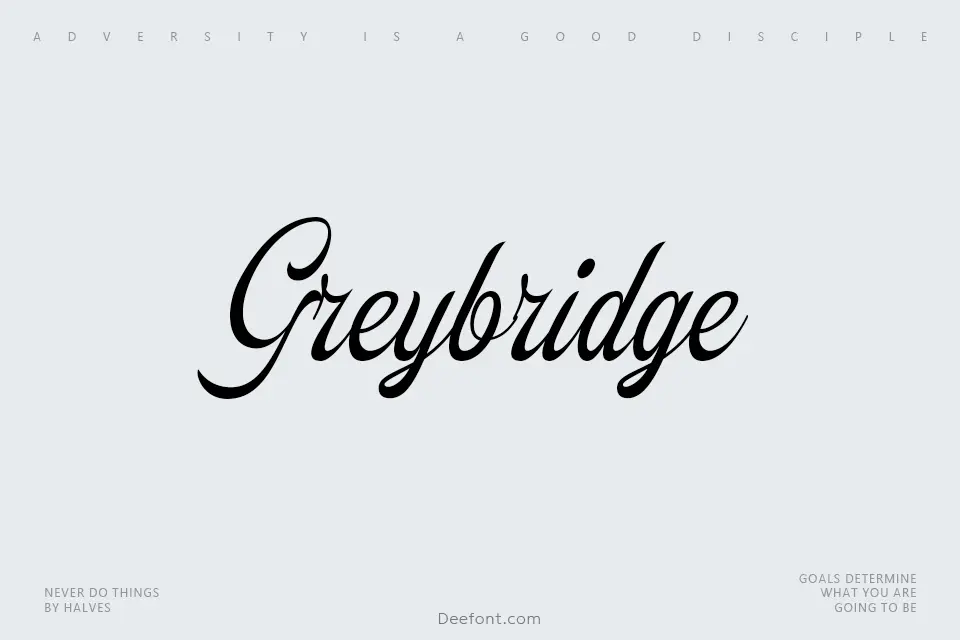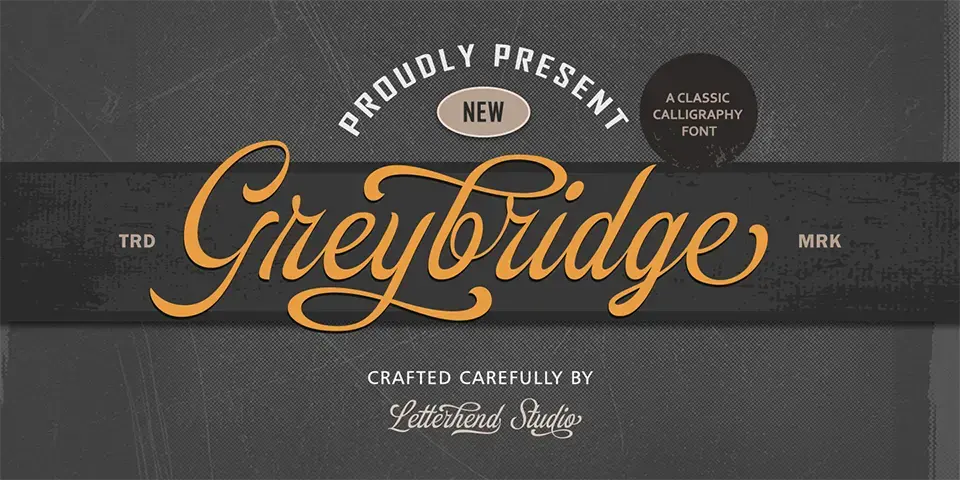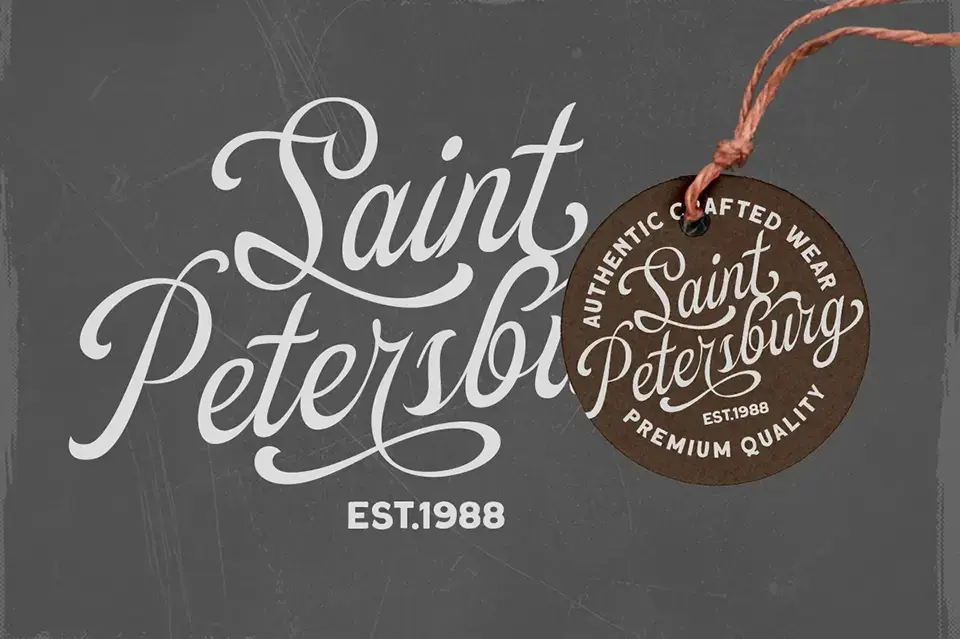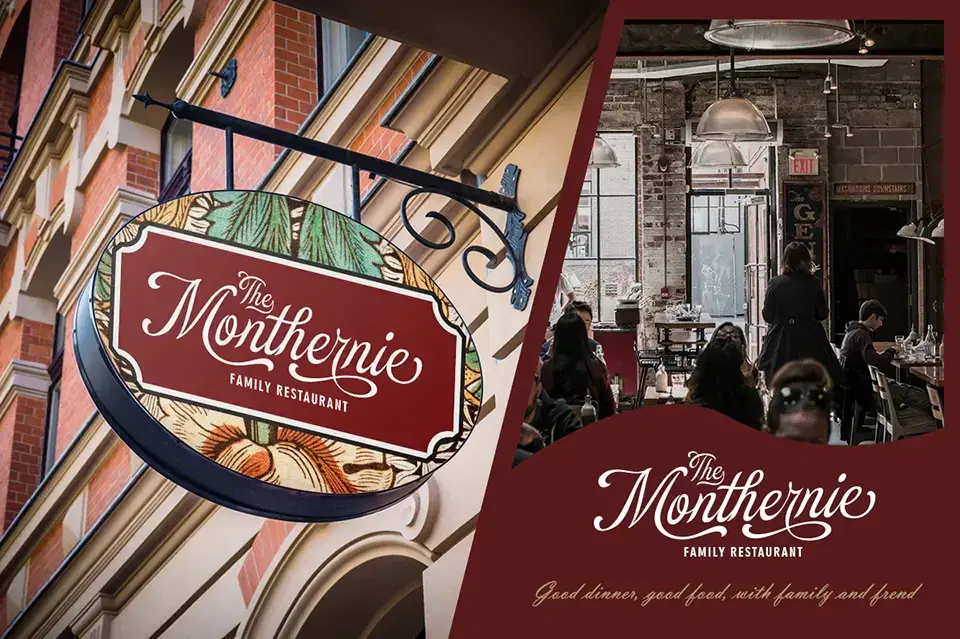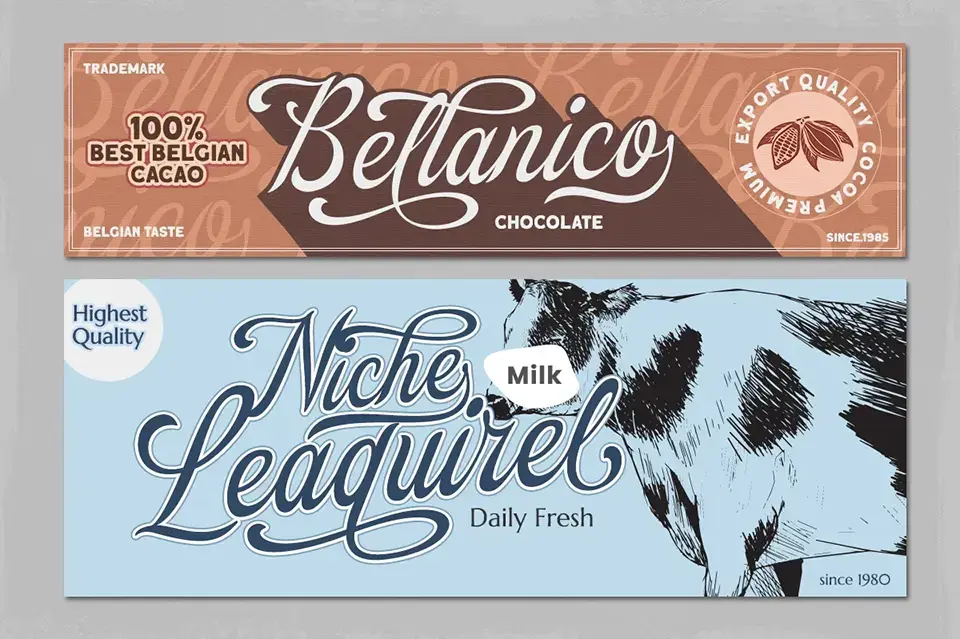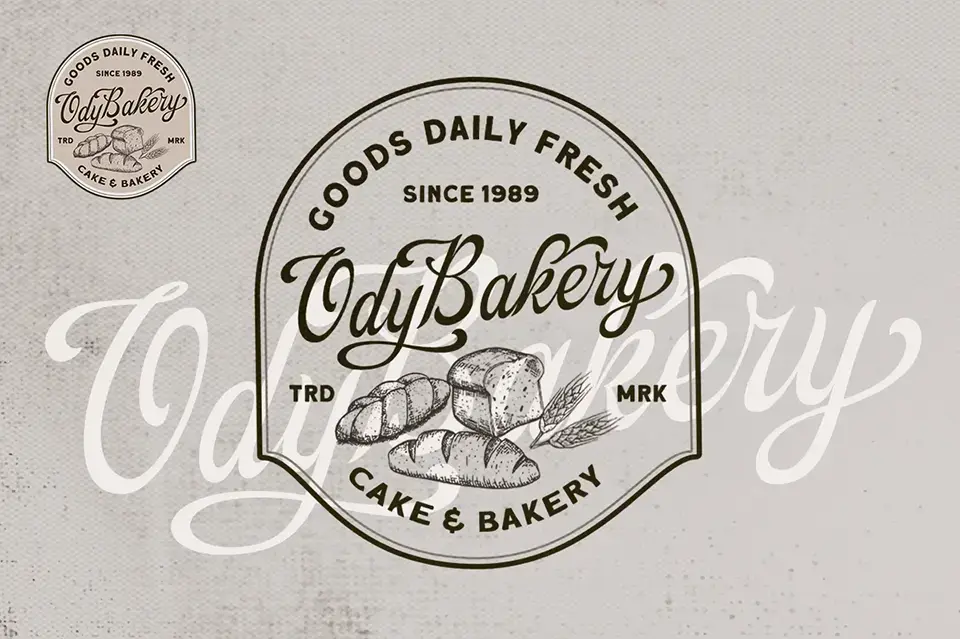
Greybridge Font
Greybridge is an elegant, old-school script typeface inspired by 1960s and 1970s retro calligraphy and letterpress traditions. This distinctive display font features bold, flowing strokes and decorative flourishes that evoke the craftsmanship of classic penmanship. The typeface excels at creating sophisticated visual impact on branding materials, formal invitations, greeting cards, wedding stationery, labels, and packaging projects. With its rich character set including uppercase, lowercase, numbers, punctuation, alternates, and stylistic swashes, Greybridge delivers timeless elegance for creative professionals seeking authentic vintage typography. Its handwritten aesthetic makes it ideal for logos, poster design, fashion applications, and any project requiring an upscale, nostalgic calligraphic touch.